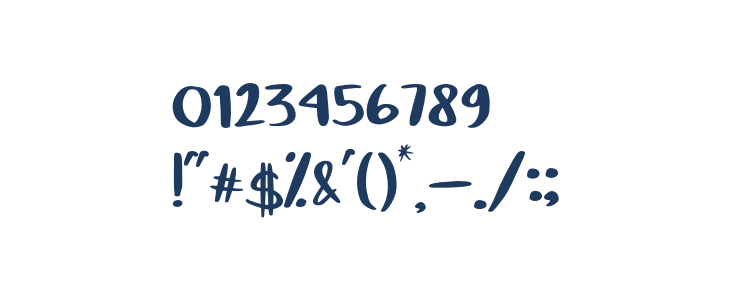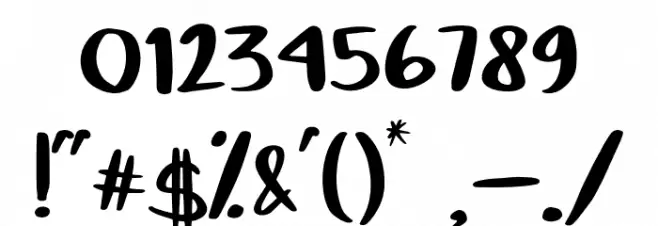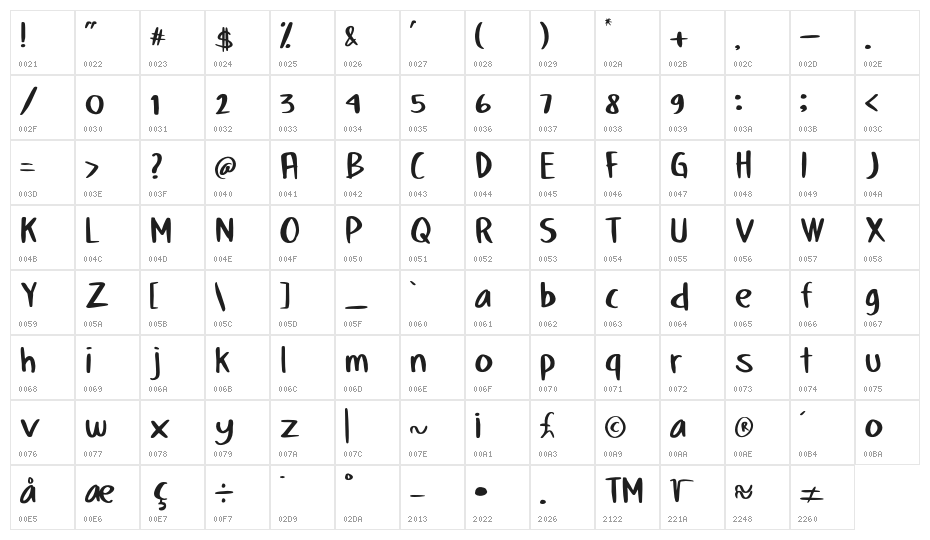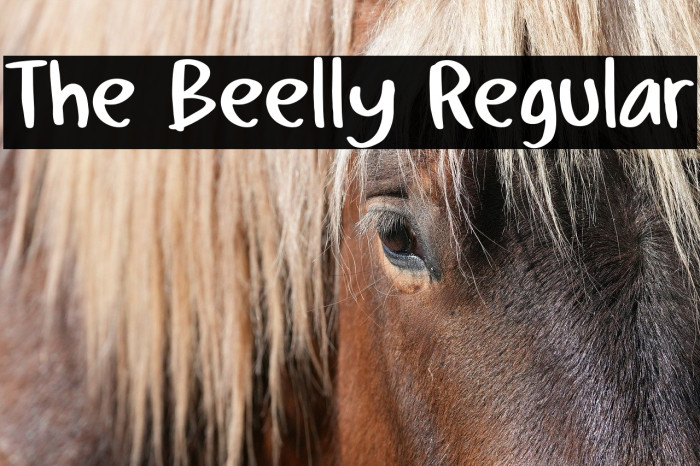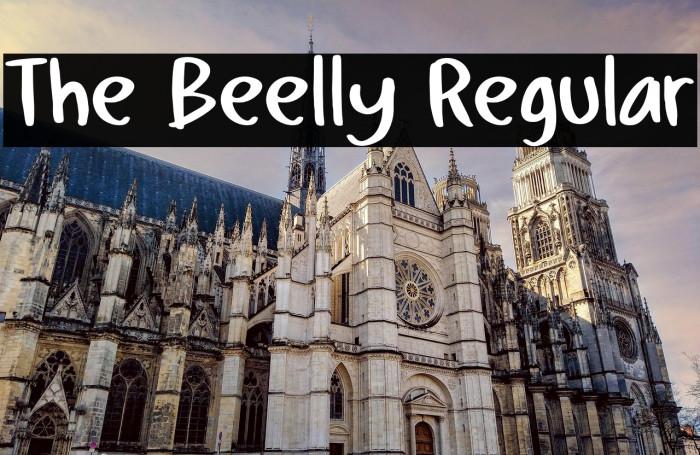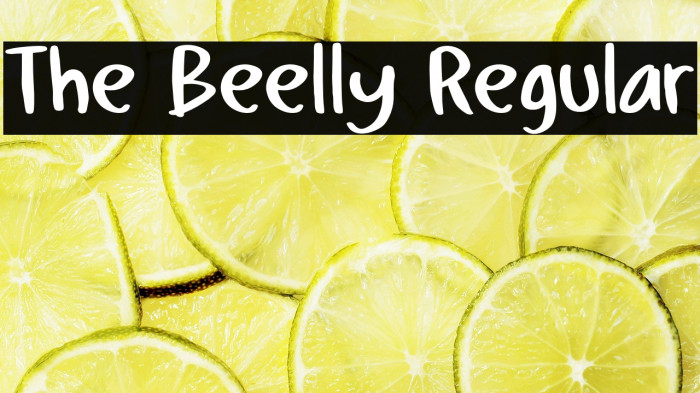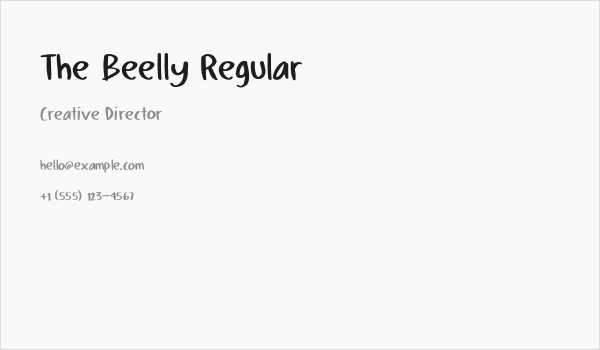
The Beelly Regular Font
The Beelly Regular Description
This font features a playful and casual handwritten style, characterized by its bold and rounded letterforms. The uppercase and lowercase letters maintain a consistent flow, with slightly irregular strokes that add a touch of whimsy and personality. The numerals and special characters follow the same informal aesthetic, making the font suitable for projects that require a friendly and approachable look. Its boldness ensures legibility while the rounded edges soften the overall appearance, making it ideal for creative and informal designs.